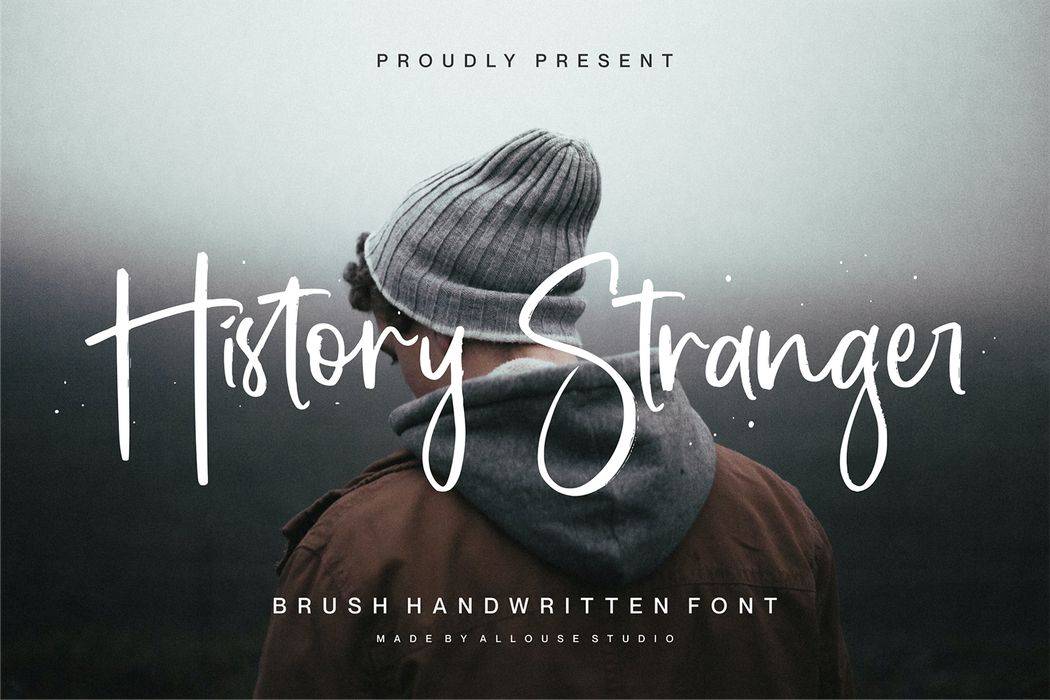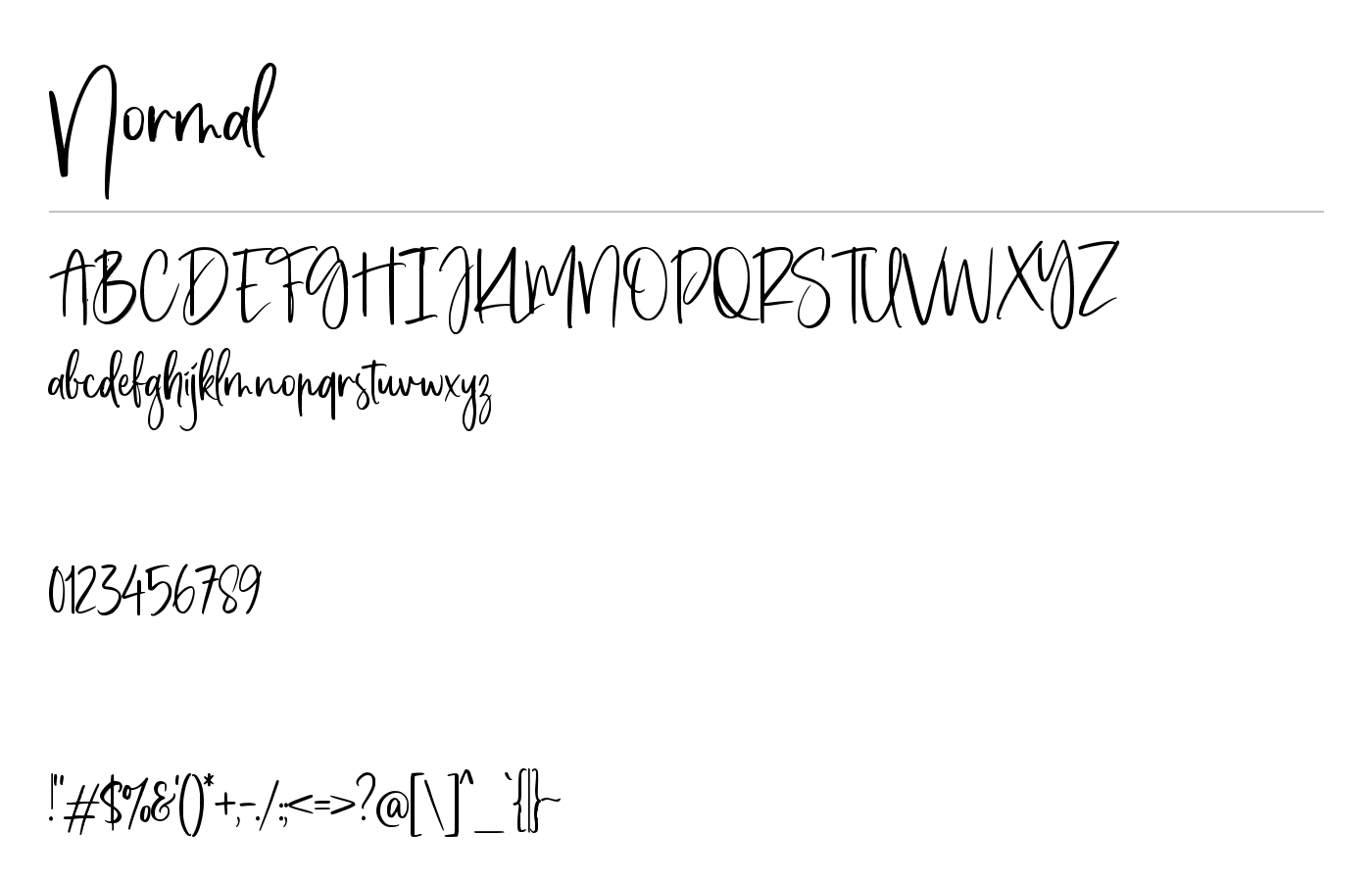
History Stranger is a playful and elegant handwritten font with tall, slender letterforms that give it a casual yet refined feel. Its delicate strokes and unique, slightly irregular shapes make it perfect for adding a personal touch to invitations, branding, and creative projects where a warm, approachable style is desired. This font works well in designs that want to convey friendliness and charm while maintaining a stylish edge.
History Stranger Font